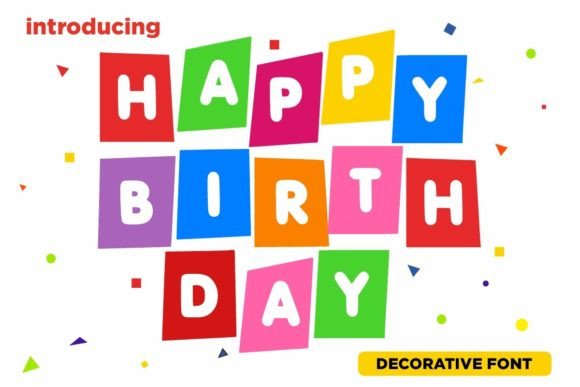
Oh, the joy of celebrations! Add a touch of joyous exuberance to your creative projects with the Happy Birth Day font, a delightful decorative typeface that's perfect for spreading happiness like confetti on a birthday cake. From whimsical invitations to playful posters, this font is your trusty companion for crafting heartfelt expressions.
Take your designs to new heights with Happy Birth Day's cheerful and energetic personality. It's a font that embodies the spirit of merriments and good times, inviting smiles and laughter wherever it appears. Dive into a world of limitless creativity, whether you're designing a birthday card for a loved one, creating a cheerful logo for a party business, or adding a touch of whimsy to your social media posts.
Happy Birth Day is more than just a font; it's an expression of pure joy. Its playful and charming style will instantly uplift your designs, leaving a lasting impression on your audience. It's like having a party in your designs, with each letter dancing and twirling, spreading contagious happiness.
So, embrace the spirit of celebration and let Happy Birth Day be your creative ally. Let the infectious energy of this font infuse your projects with an unforgettable charm that will make them stand out from the ordinary. Happy Birth Day is your key to unlocking a world of creative possibilities, where every design is a celebration waiting to happen.